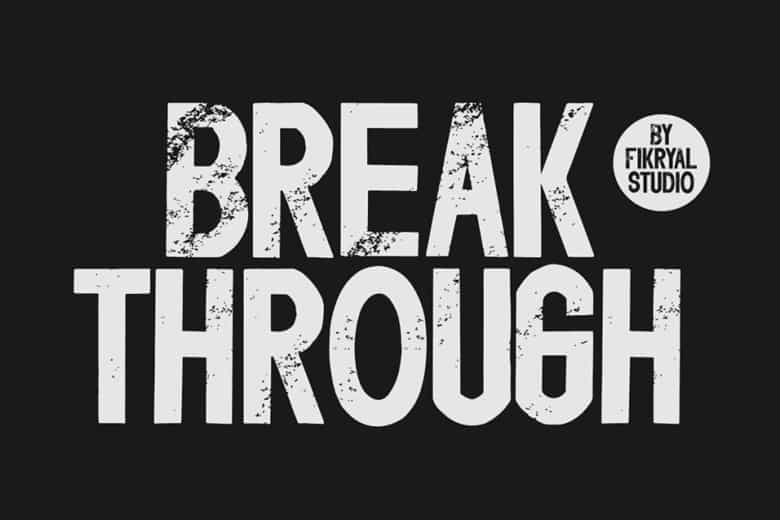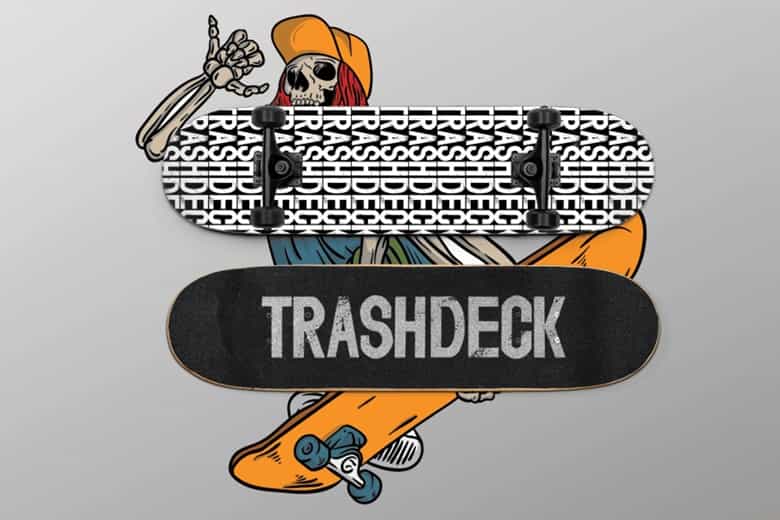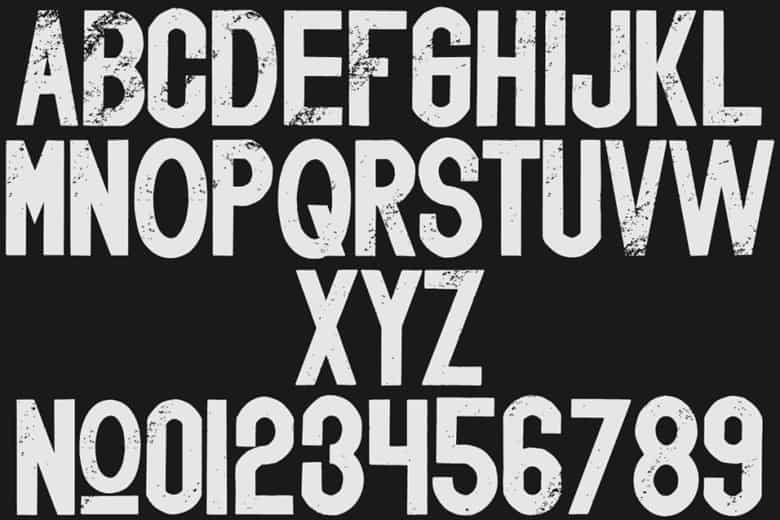
Discover Breakthrough Font, part of the Sans Serif Brush Display collection—a versatile and unique font perfect for adding a personal touch to your projects. Download it for free and enjoy crafting designs with style, from invitations to social media posts. This font is available exclusively for personal use, giving you the freedom to create without limits. Unlock your creativity with Breakthrough Font today!
Breakthrough is a sans brush display font. This font is very applicable when it comes to the use in the areas of design and your branding. Making it very suitable for logos, branding, title, social media posts, advertisements, product packaging, product designs, label, photography, special event, magazine, web designs, etc.